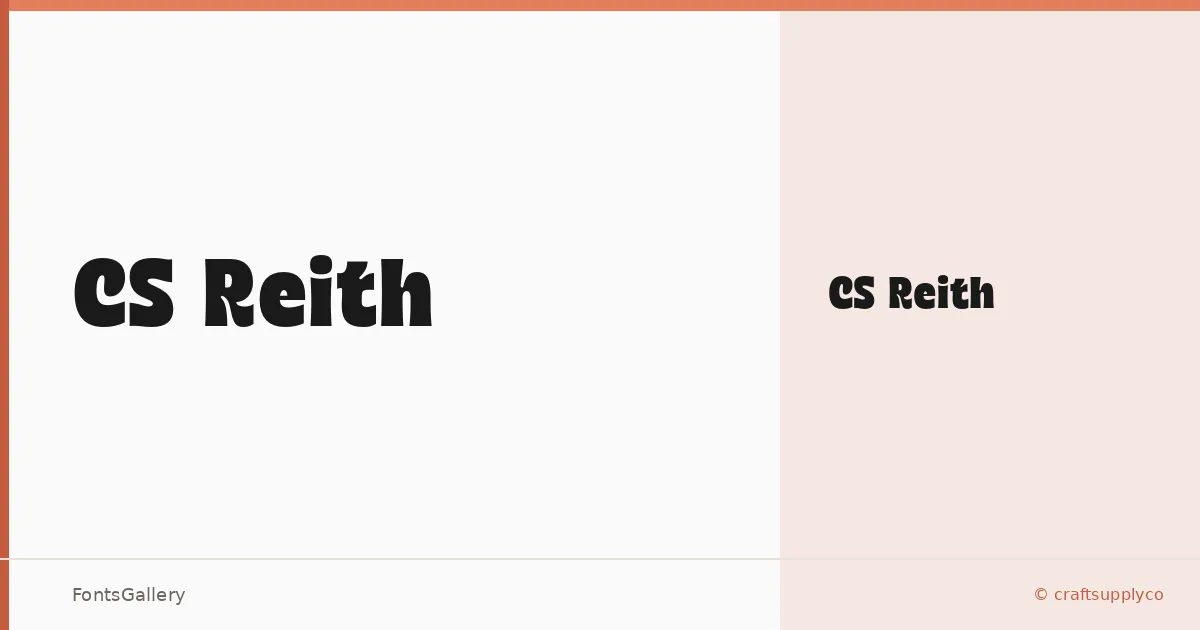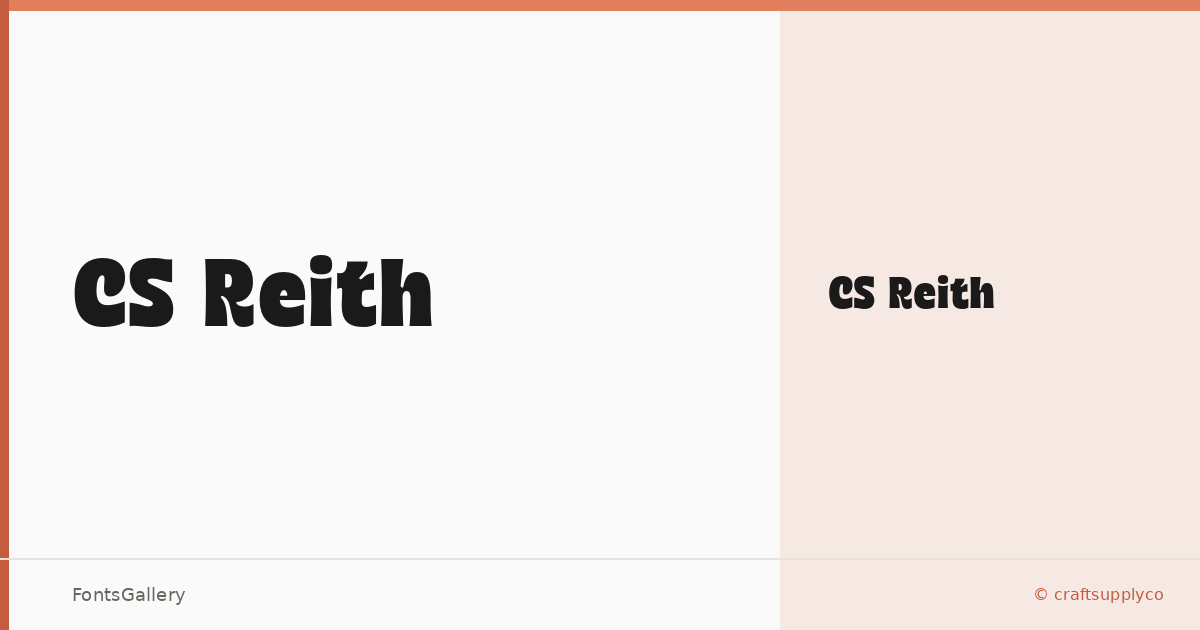
About CS Reith Font
There is an assertiveness to CS Reith that announces itself immediately — a display face from craftsupplyco that carries real weight without becoming heavy-handed. The single Regular cut is delivered in OTF format, and even within that one style the letterforms strike a mood that is at once modern and a little playful, the kind of confidence that feels intentional rather than accidental.
This is a display typeface built for impact. The forms lean bold and contemporary, with enough character to hold attention at large sizes — think headlines and poster lockups where the type needs to do expressive work on its own. The playful edge keeps it from reading as purely corporate, which gives it room to breathe in creative and brand contexts where straight-faced gravity would feel wrong.
It earns its keep in branding systems, logo treatments, editorial headlines, and poster design — anywhere a single line of type needs to carry the visual load. For body copy or secondary text, it pairs well with neutrals like Helvetica or Asap, and holds its own alongside editorial faces such as Canela, Etna, and ABC Arizona, each of which can balance its character without competing with it.